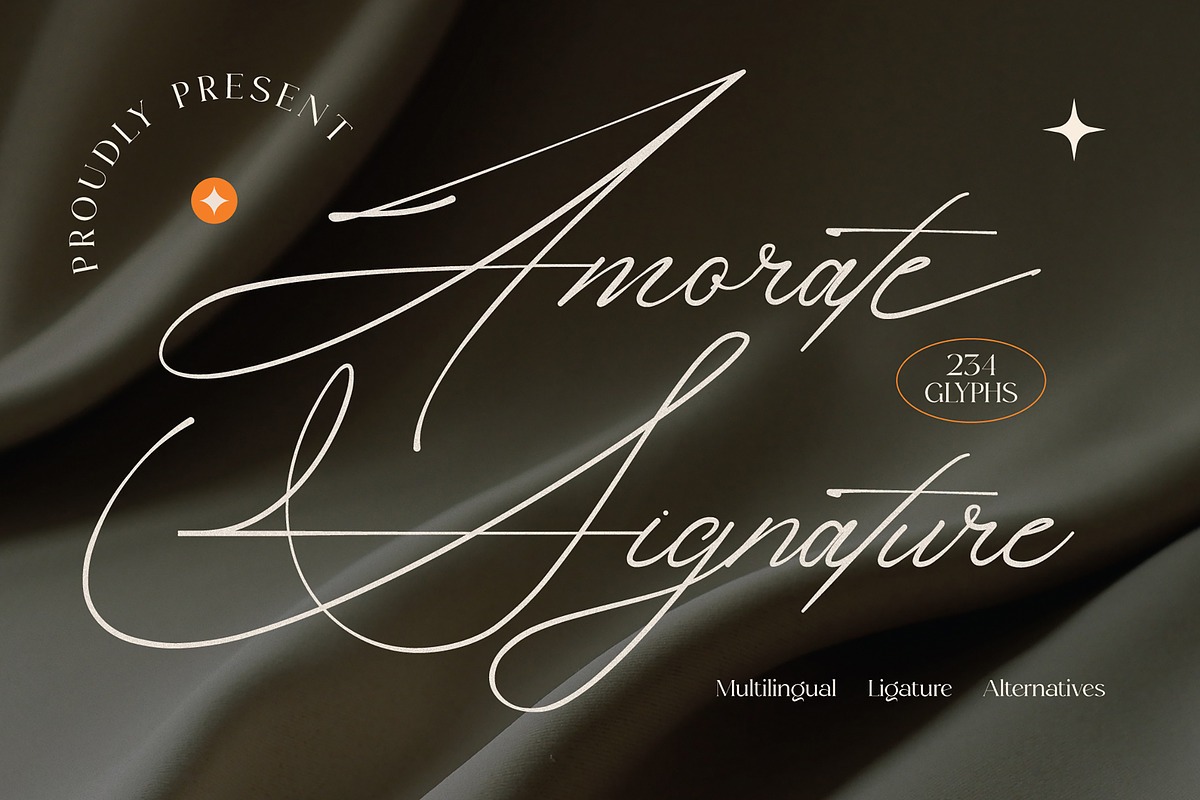
Amorate Signature Script Font
Amorate Signature Script Font brings a balanced structure and contemporary look, making it suitable for both digital and print design. Amorate is an elegant signature-style script font designed with long, flowing strokes and refined handwritten details. Its smooth curves and graceful letterforms create a luxurious, romantic, and personal feel-perfect for logos, branding, wedding designs, fashion editorials, and premium social media visuals.